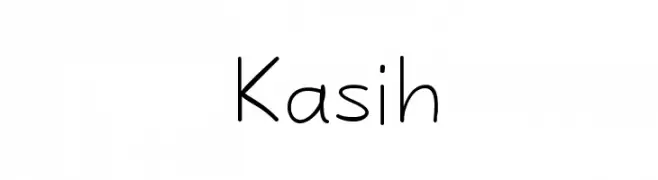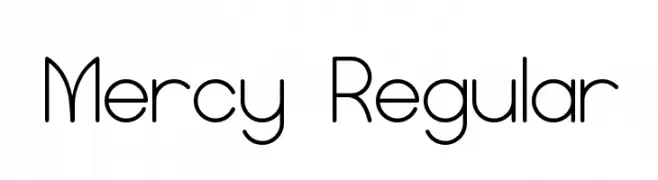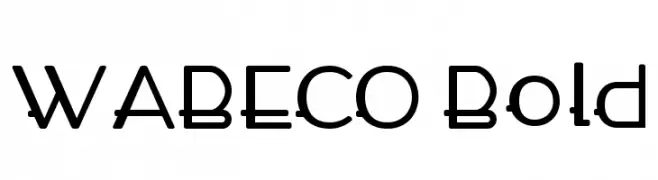
A bold, modern font with integrated yin-yang symbols for a unique, thematic style.
A sleek, modern, extra-light italic font with a dynamic and elegant style.
A bold, geometric sans-serif font with a modern and clean design.
A futuristic, geometric font with a digital, monospaced style.
A modern, geometric font with rounded edges and uniform stroke width.
A modern, thin font with geometric shapes and minimal contrast.
A clean, geometric sans-serif font with uniform line thickness and rounded edges.
A clean, modern sans-serif font with excellent readability and versatility.
A clean, handwritten-style font with rounded edges and consistent strokes.
A modern, extra light, condensed sans-serif font with excellent readability.